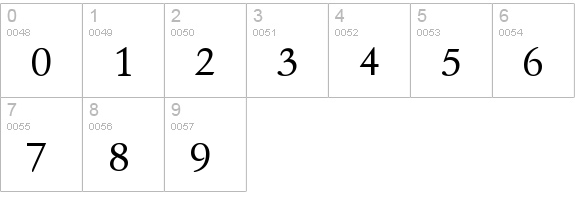
GaramondNo4CyrTCYLig is a classic and elegant font that exudes sophistication and timelessness. With its graceful curves and delicate serifs, this typeface is perfect for adding a touch of refinement to any design project. The Cyrillic characters in this font add a unique flair, making it suitable for various applications such as branding, editorial design, and more. What makes GaramondNo4CyrTCYLig even more appealing is that it is available for free download at FontsMarket.com. This means that you can easily access this exquisite font without any cost, making it a valuable addition to your font collection. Whether you are a designer looking for a versatile typeface or an individual seeking to elevate your projects, GaramondNo4CyrTCYLig is a fantastic choice that combines beauty and accessibility.